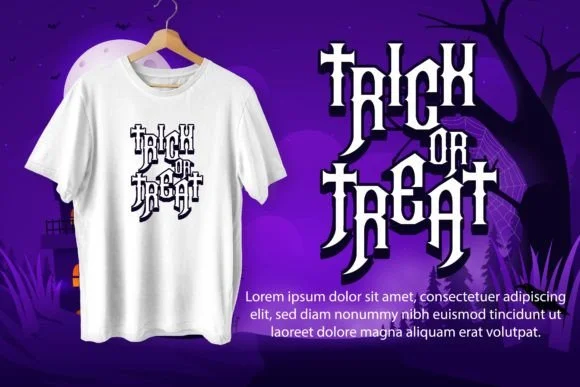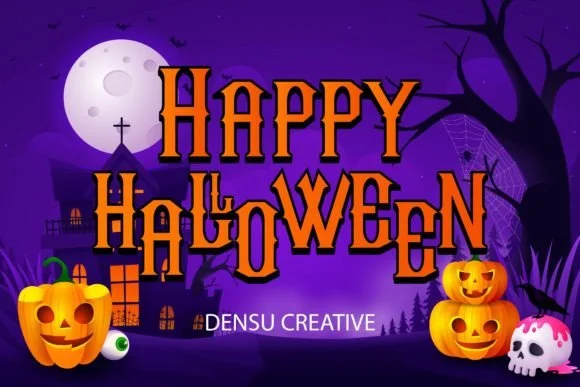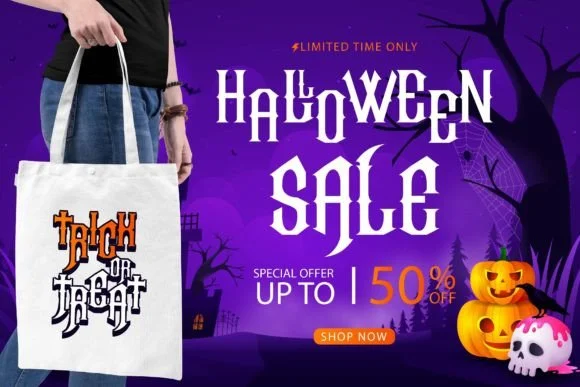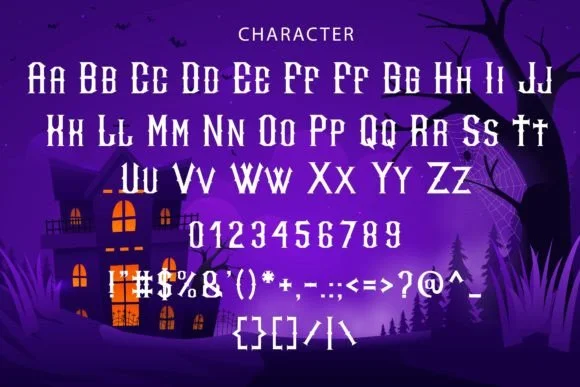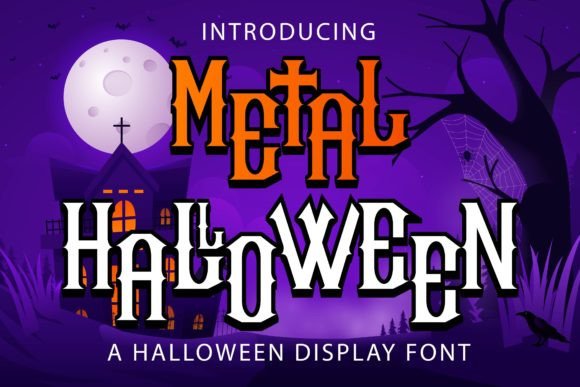
Metal Halloween Font
This heavy font is perfect for metal music Halloween concerts, rock horror festivals, heavy metal costume parties, industrial Halloween events, metal band Halloween branding, rock horror marketing, heavy music seasonal displays, metal Halloween merchandise, industrial gothic decorations, and brutally powerful Halloween messaging materials.
Metal Halloween Font is exciting because it forges the raw power and brutal intensity of heavy metal music with the dark atmosphere of Halloween through its aggressively crafted letterforms that seem to be hammered from iron and forged in the fires of supernatural terror. The font features sharp, angular characters with metallic proportions and industrial details that evoke the spine-crushing power of heavy metal riffs combined with the bone-chilling atmosphere of Halloween night, incorporating razor-sharp edges and metallic flourishes that create typography as brutal and uncompromising as the sound of distorted guitars screaming through the darkness. Each letter showcases the relentless force and unforgiving intensity that makes both heavy metal and Halloween such powerful expressions of raw human emotion, with industrial curves and metallic accents that transform ordinary text into instruments of sonic terror that capture the crushing weight and supernatural darkness that make metal Halloween celebrations so intensely powerful and unforgettably brutal.
The Metal Halloween Font family includes industrial style variations: Regular, Bold, Light, Brutal, and Forged versions. The collection features special metal elements including steel accents, industrial flourishes, razor details, and metallic ornaments. Additional components include metal borders, industrial frames, steel decorations, and brutally powerful ornamental designs that enhance the font's metal Halloween appeal and create cohesive heavy metal horror themes.
Metal musicians and industrial horror enthusiasts will find Metal Halloween Font to be an invaluable resource for creating authentically brutal Halloween communications that celebrate the crushing power and dark intensity of metal music culture combined with Halloween terror. This industrially crafted font transforms ordinary Halloween messaging into metal expressions that resonate with audiences who appreciate the raw power and uncompromising intensity that make metal Halloween themes such compelling elements of heavy musical horror and industrial supernatural entertainment.
The typeface includes comprehensive character support with industrial styling that maintains excellent readability while conveying the brutal power and metallic atmosphere of heavy metal Halloween celebrations. The font's forged design ensures crushingly powerful results across both amateur metal applications and professional industrial horror productions.
Perfect for metal concerts, industrial Halloween events, heavy music celebrations, and brutally powerful seasonal marketing, this font delivers crushingly intense visual impact that communicates raw power, metallic brutality, and the unforgiving intensity that makes metal Halloween such a powerfully dark and intensely brutal celebration of heavy musical horror.